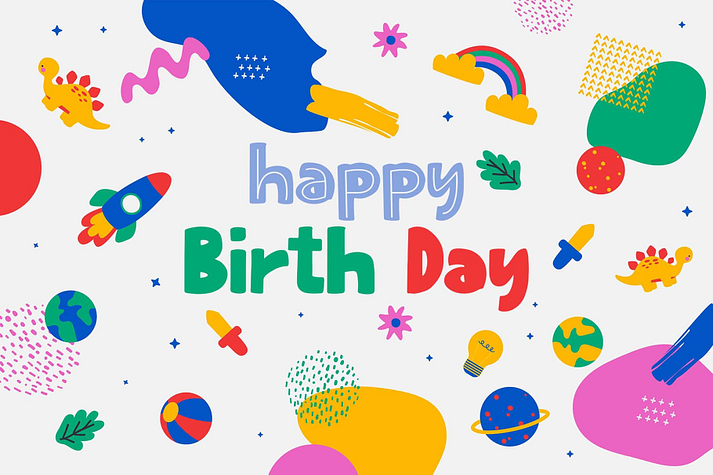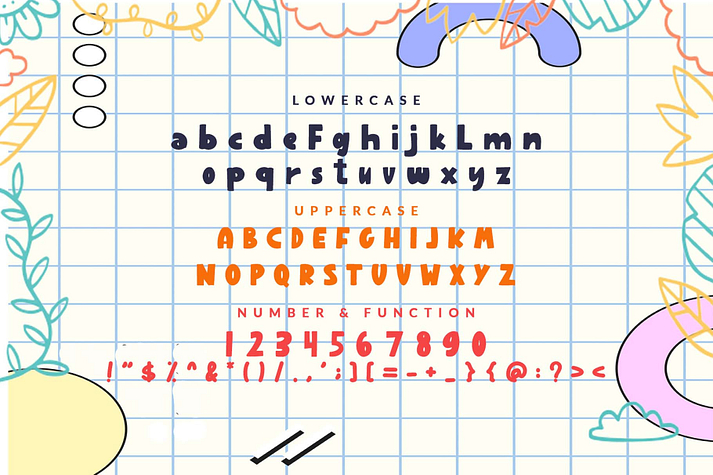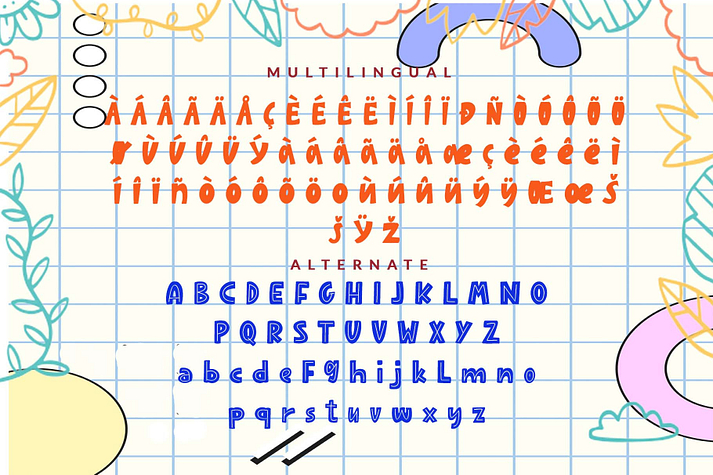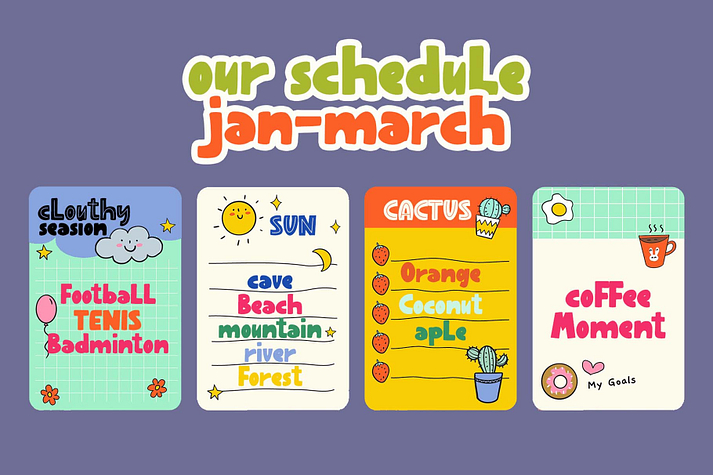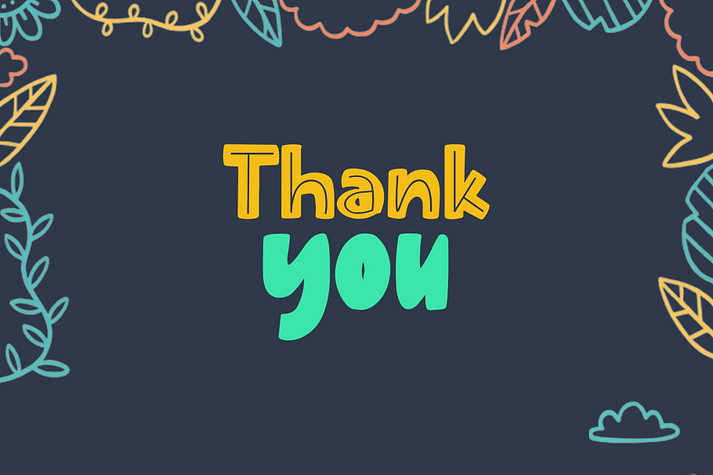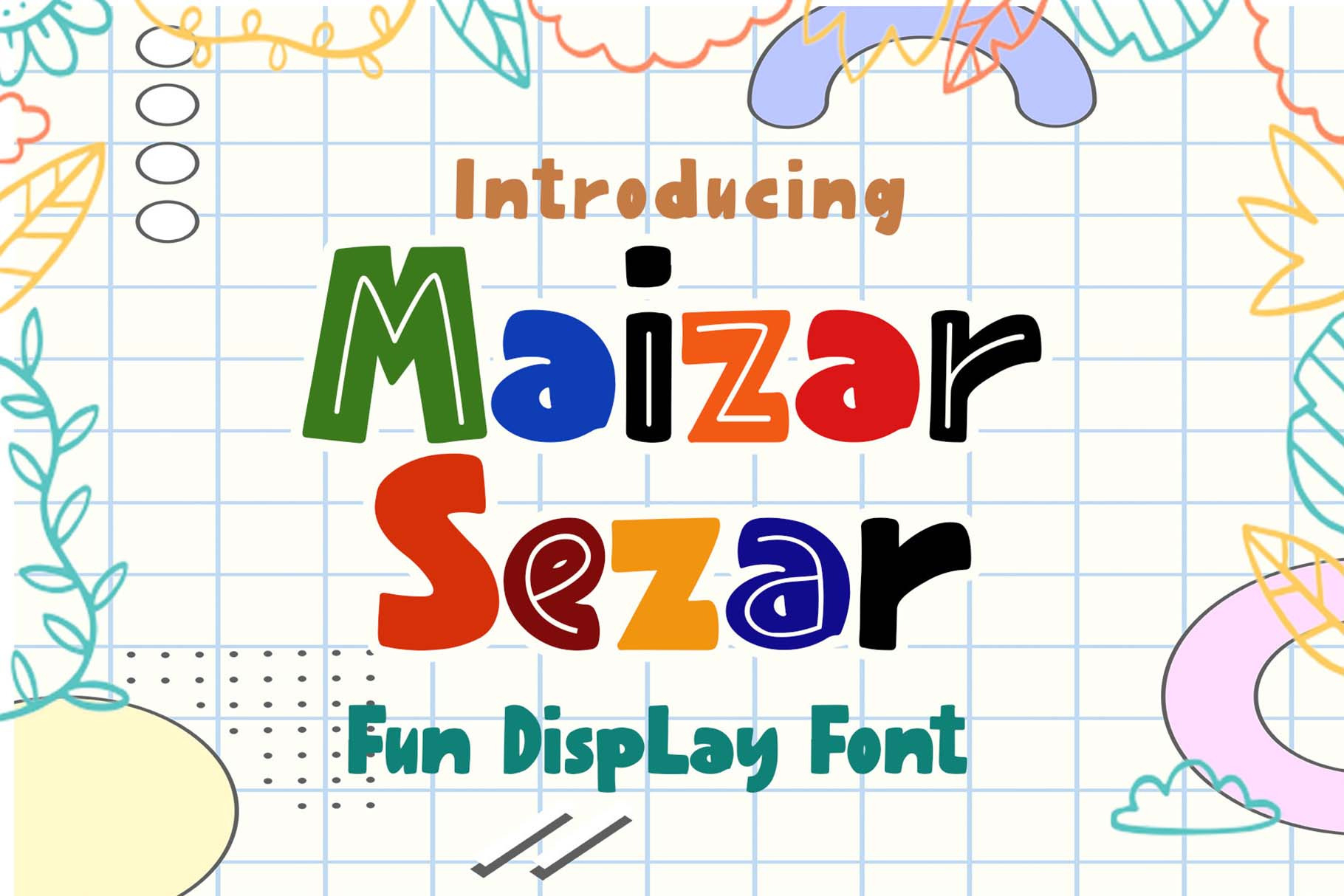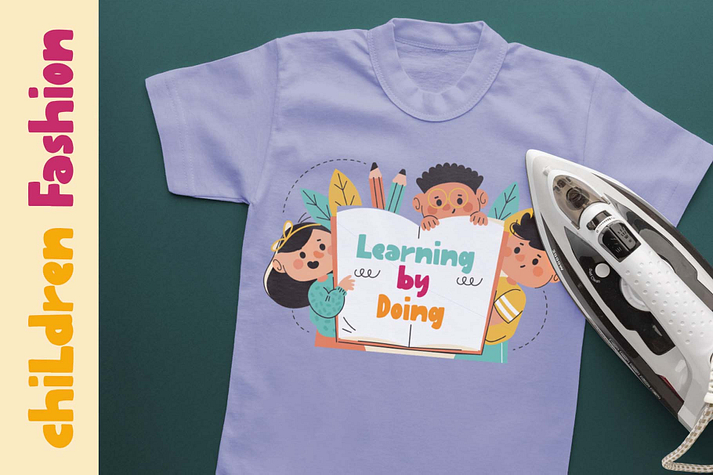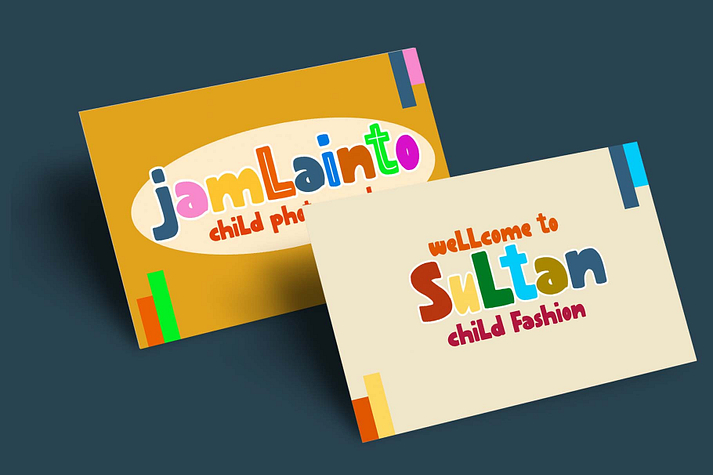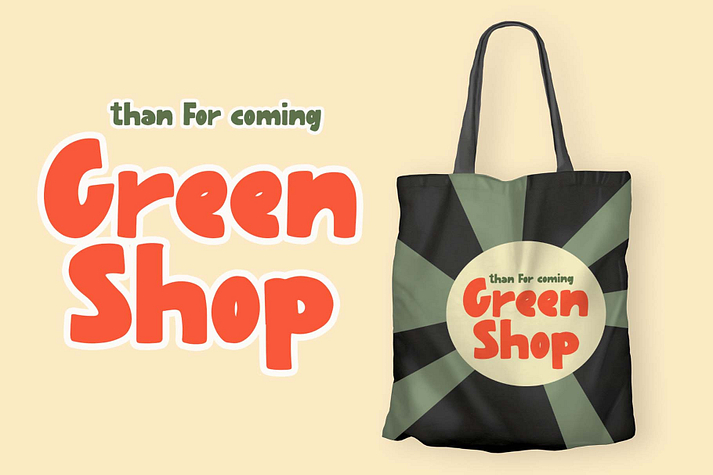
Maizar Sezar
Maizar Sezar is a display sans font family published by Wildan Type.
Maizar Sezar is a cute, playful and fun display font. This font is perfect for children themed designs, especially when combined with bright colors. Maizar Sezar is PUA encoded which means you can access all of the glyphs and swashes with ease.